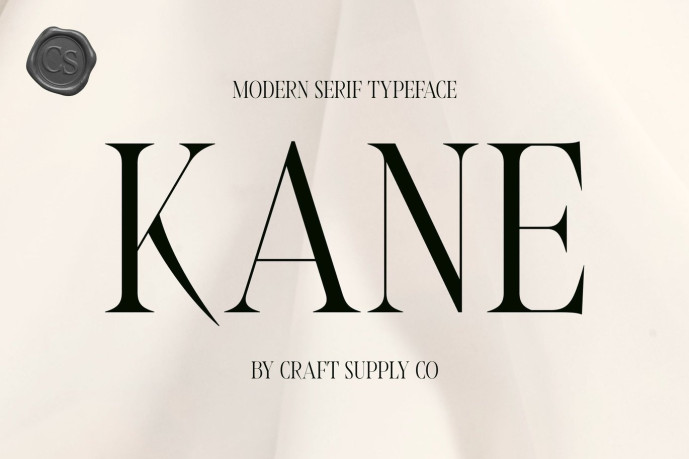
Kane – Modern Serif Font
Designer: Craft Supply Co.
CS Kane – Modern High-Contrast Display Serif: Where Editorial Elegance Meets Timeless Luxury Elegant Proportions with Fine Wedge Serifs This is a modern high-contrast display serif that showcases elegant proportions, fine wedge serifs, and beautifully refined letterforms. The dramatic contrast between thick and thin strokes creates a graceful visual rhythm, while the sharp yet delicate serif details enhance its sophisticated and luxurious appearance. Every character is crafted to communicate precision, elegance, and premium quality.
Editorial-Inspired Style with Contemporary Sophistication This font blends timeless serif traditions with modern design sensibilities. Its balanced structure and graceful proportions create a polished visual identity that feels fashionable, professional, and effortlessly elegant. The result is typography that commands attention while maintaining exceptional refinement.
Luxurious Typography with Lasting Appeal By combining high-contrast strokes, elegant proportions, and finely crafted wedge serifs, creates a distinctive visual identity that is both contemporary and timeless. Its sophisticated character makes it ideal for premium branding and luxury-focused design, delivering typography that feels exclusive, memorable, and beautifully expressive.
Perfect for Editorial Layouts and Premium Visual Identities Perfect for logos, beauty products, luxury packaging, editorial layouts, magazine covers, advertising, invitations, and premium visual identities. Its elegant high-contrast letterforms make it ideal for designs that communicate sophistication, prestige, and timeless style.